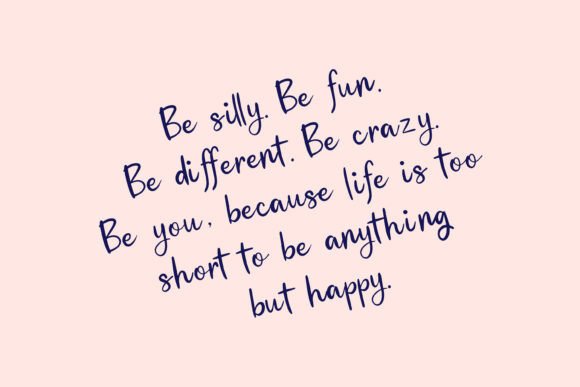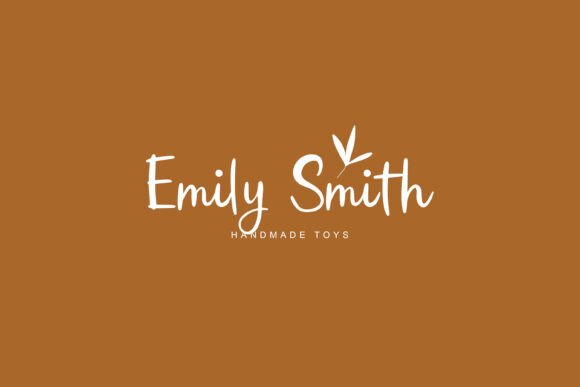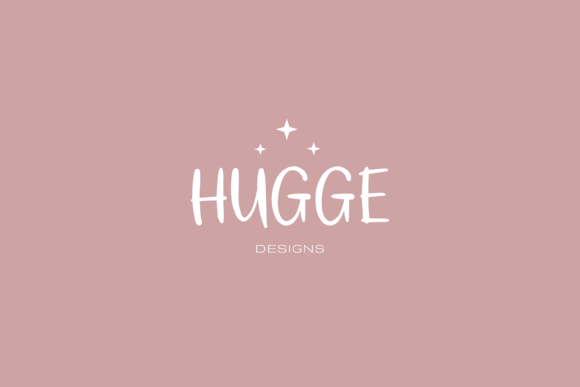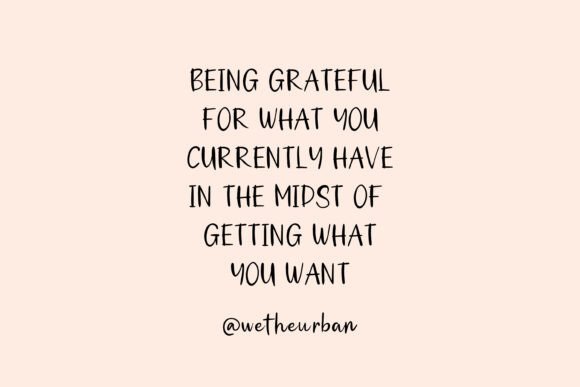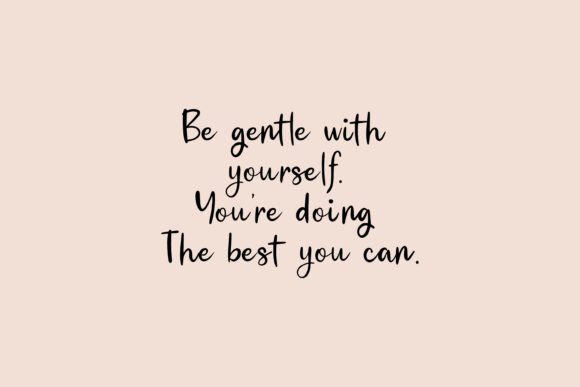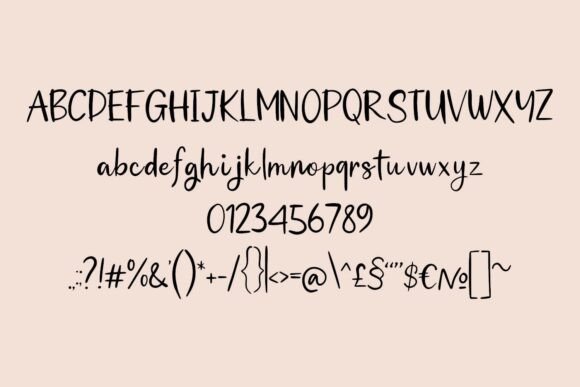
Introduction to La France Font Font
Fonts play a crucial role in design, and the La France Font font is a typeface that brings both character and versatility to any project. Whether you’re working on a branding project, a website, or a print design, the La France Font font offers a unique style that can elevate your work.
La France is a sweet and elegant handwritten font with a fancy style.
Its flowing letters and soft curves make it perfect for invitations, cards, or any project that needs a touch of charm and beauty .
The La France Font font is more than just a typeface – it’s a design tool that helps you communicate your message with style and clarity. Its unique character set and versatile design make it suitable for a wide range of applications, from elegant invitations to bold headlines.
With its carefully crafted letterforms and balanced proportions, the La France Font font ensures readability and visual appeal across all mediums.
The La France Font font stands out with its unique design, exceptional readability, and versatility across various design applications.